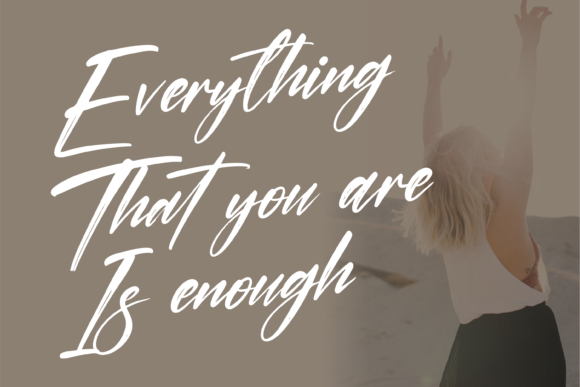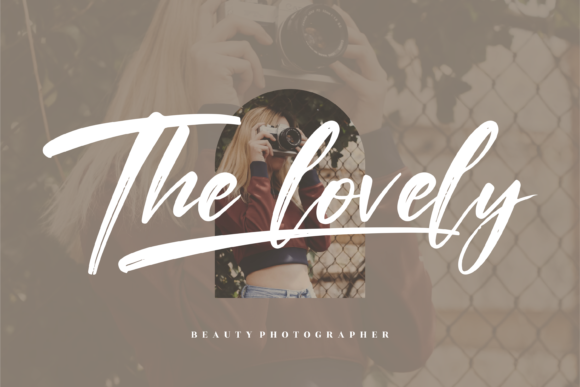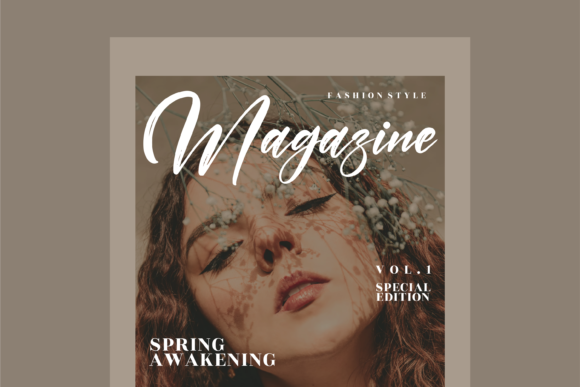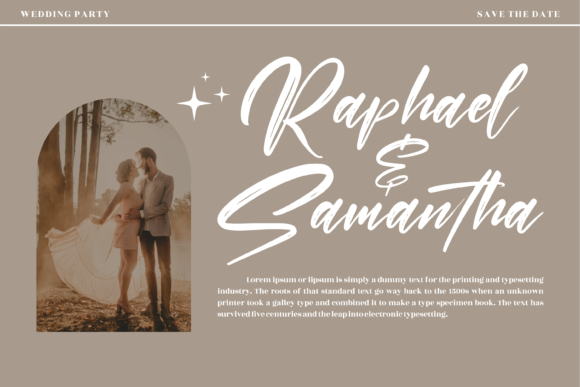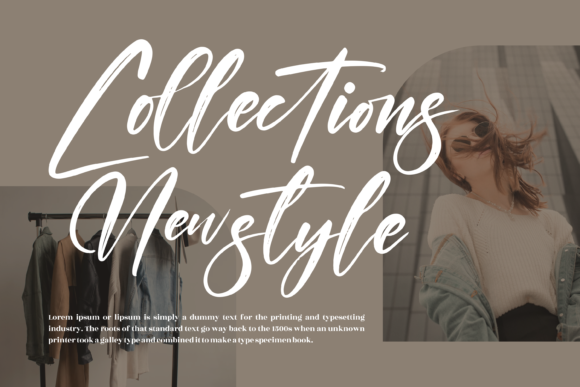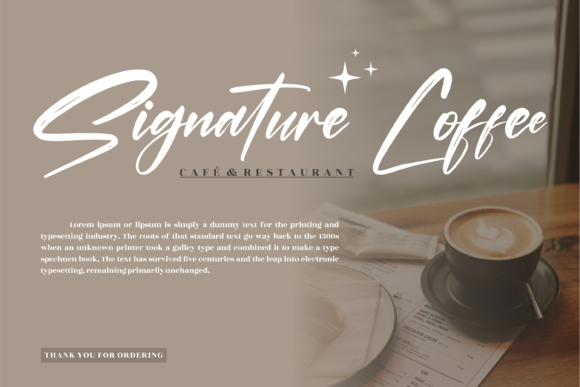
Introduction to Kastelo Southern Font
Kastelo Southern is a calligraphy brush font, suitable for any projects such as logos, branding projects, homeware designs, product packaging, mugs, quotes, posters, shopping bags, t-shirts, book covers, name cards, invitation cards, or greeting cards.
You can also use it for labels, photography, watermark, special events, and all your other lovely projects that need a beautiful script taste .
Key Features of Kastelo Southern Font
Why Choose Kastelo Southern Font?
Kastelo Southern Font offers exceptional quality and versatility, making it a valuable addition to your design toolkit. Whether you’re creating for personal projects or commercial use, Kastelo Southern Font delivers professional results.